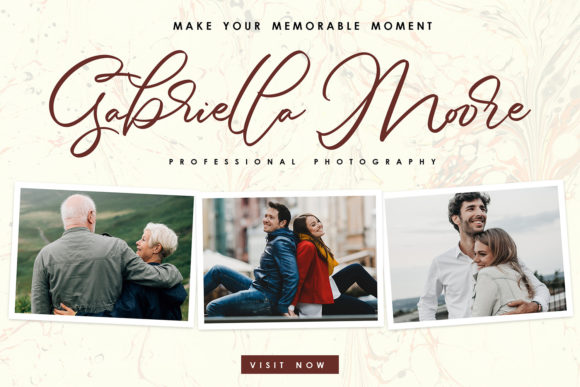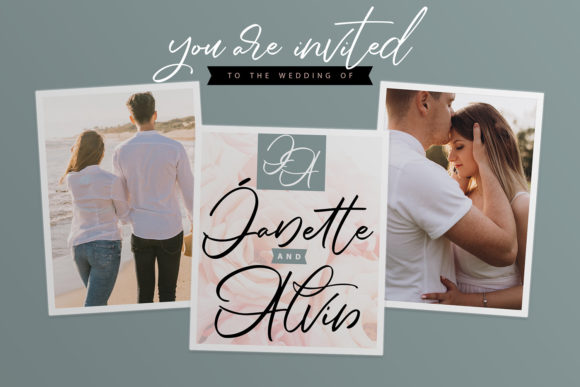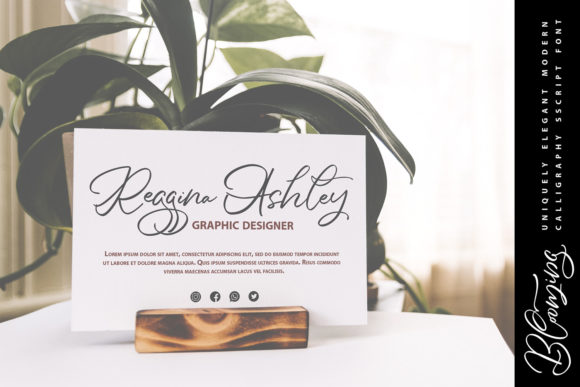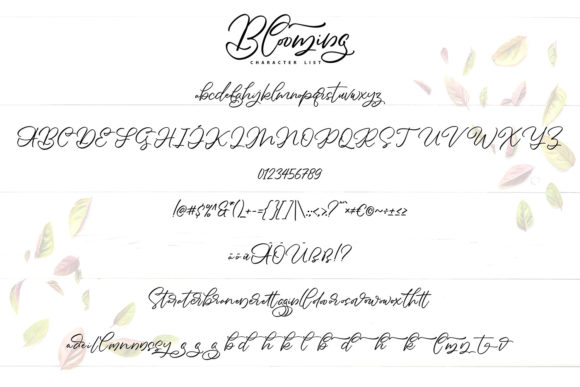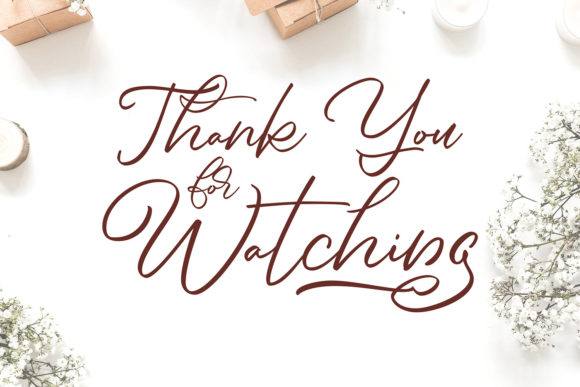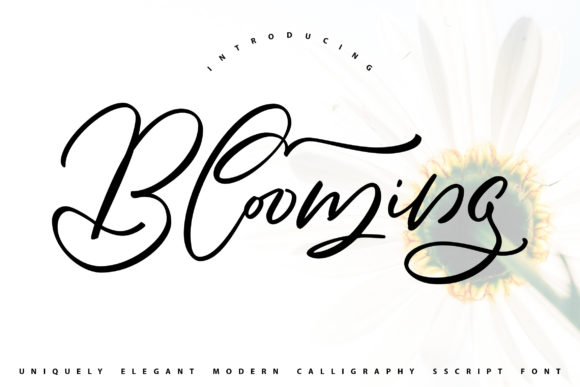
The Blooming Font: A Delicate, Elegant Companion for Your Design Journey
Have you ever been in the middle of a design project, and suddenly, you just can’t seem to find the right font? I recall a particularly frustrating experience when I was working on a wedding invitation design. My client wanted something elegant, yet playful, and I was determined to deliver. That’s when I stumbled upon the Blooming font – a delicate, elegant, and flowing handwritten font that has since become a staple in my design toolkit.
- 💫 Beautiful, well-balanced characters that exude elegance
- 🎨 Perfect for a wide range of designs, from wedding stationery to branding and packaging
- 🔍 PUA encoded for easy access to glyphs and swashes
- 👍 Highly legible, even at smaller font sizes
- ⚠️ Some users may find the font a tad too delicate for certain design applications
- 🤔 Limited availability of bold or heavy weights, which may not be ideal for headlines or titles
The Designer Inspiration Behind Blooming
While the true story behind the Blooming font remains a mystery, it’s easy to imagine that the designer was inspired by the delicate, flowing lines of nature. Perhaps they spent hours pouring over beautiful handwriting samples, searching for the perfect blend of elegance and playfulness. Whatever the inspiration, the result is a font that’s both timeless and versatile.
Q: Is the Blooming font suitable for body text?
A: While the Blooming font is highly legible, it’s best suited for display text or headings. For body text, you may want to consider a more traditional serif or sans-serif font.